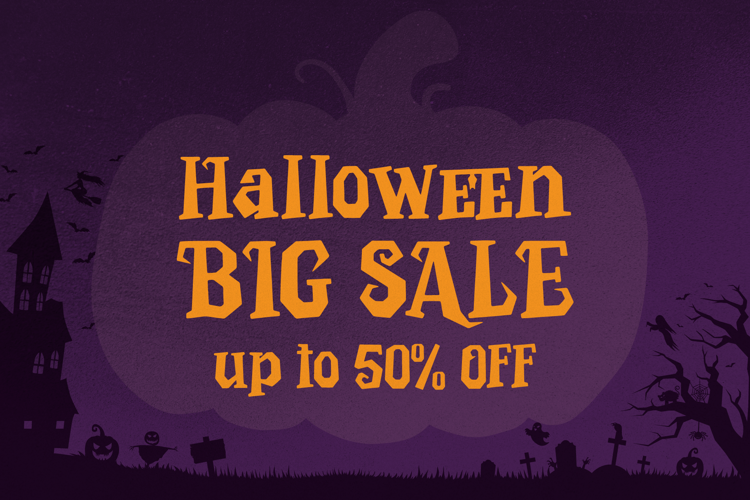
Vespera Mind Font
Vespera Mind | Halloween Display Font product packaging, mugs, quotes, posters, shopping bags, t-shirts, book covers, name card, invitation cards, greeting cards, label, photography, watermark, special events, and all your other lovely projects that need a horror font taste.